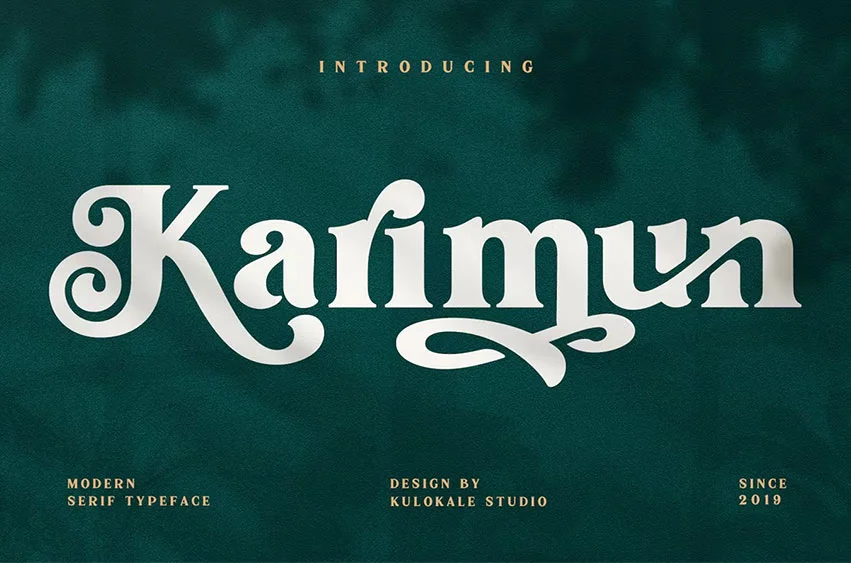
Karimun Font is a Modern Serif Font with beautiful alternate characters and also ligature that makes it easy for you to create a Logo for your personal brand and business beautifully.
Karimun is perfect for many different projects such as Logos and Branding, Invitations, Stationery, Wedding Designs, Social Media Posts, Advertisements, Print Quotes, Product Packaging, Product Designs, Labels, Photography, Watermarks, Special Events, or any stuff.